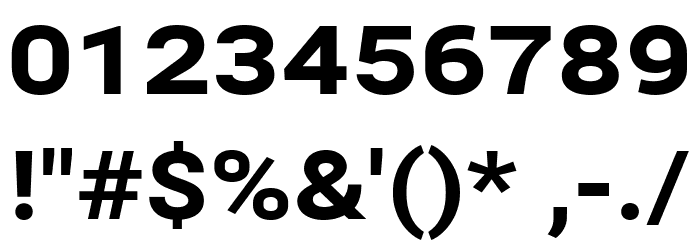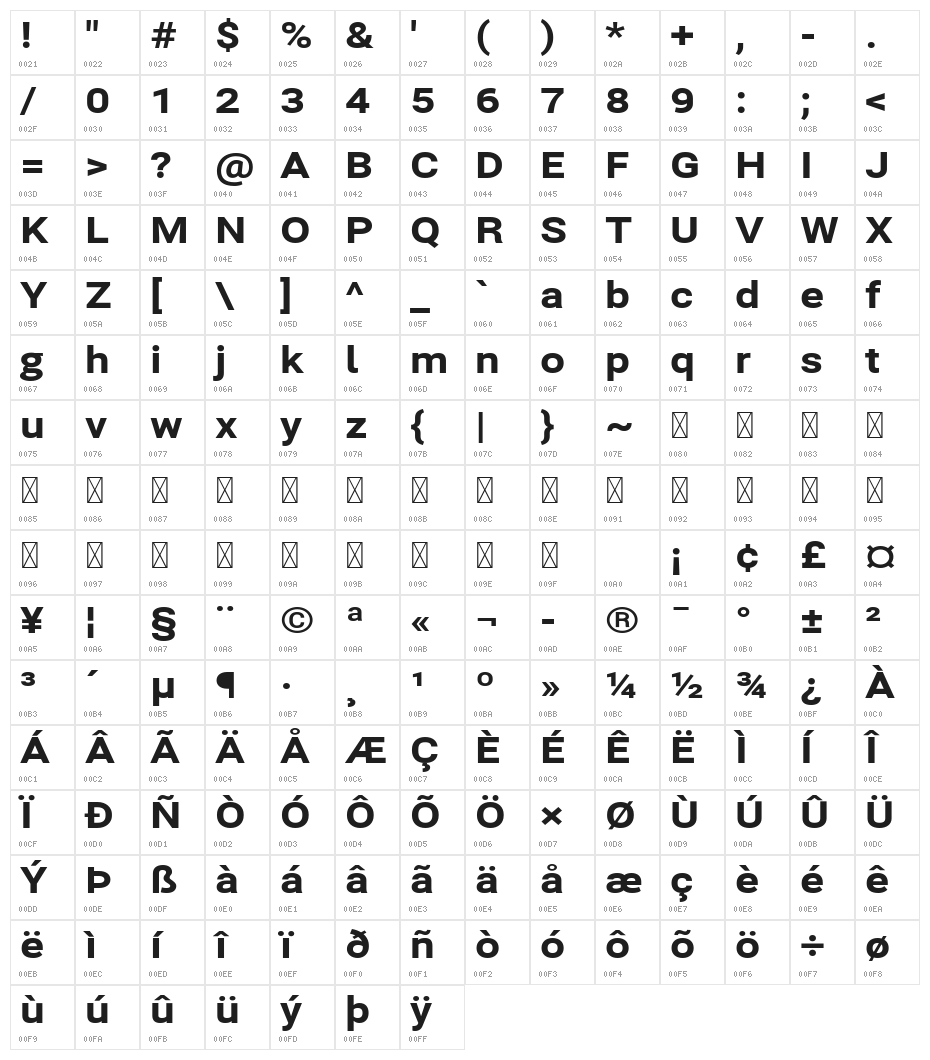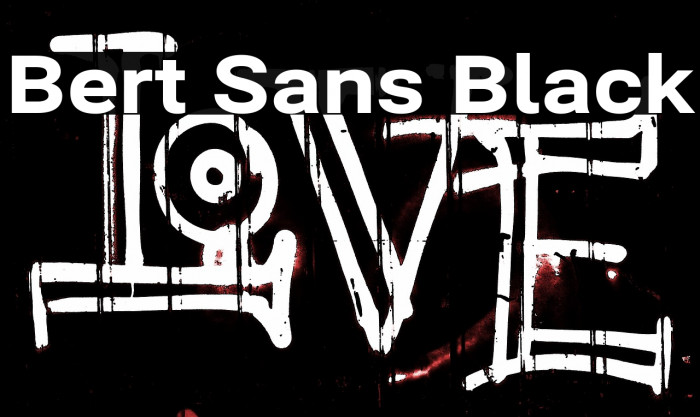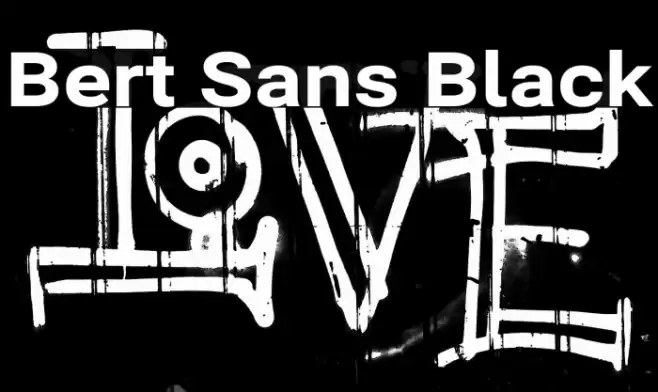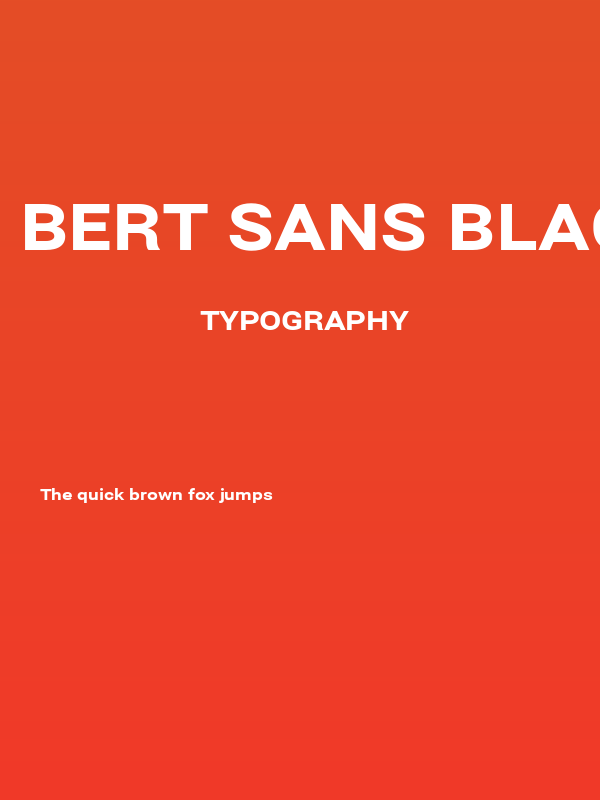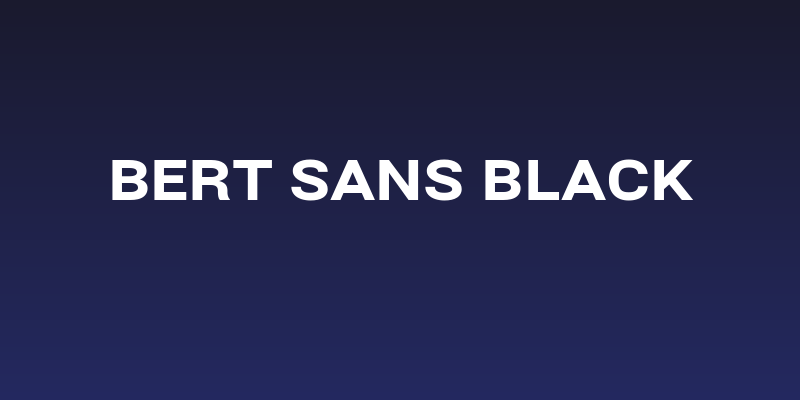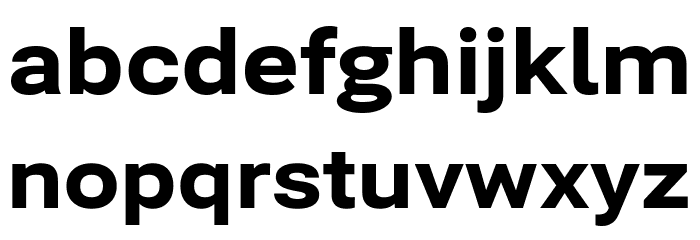
Bert Sans Black Font
Bert Sans Black Description
This typeface presents a bold and modern aesthetic with clean lines and a strong presence. The characters are uniformly thick, offering a consistent and powerful look across both uppercase and lowercase letters. The numerals and special characters maintain this boldness, ensuring clarity and readability. The design is straightforward, with no additional flourishes or serifs, making it ideal for contemporary applications. The spacing between characters is balanced, providing a harmonious flow without feeling cramped or overly spaced. This font is versatile, suitable for a range of design needs where a strong, modern impression is desired.
| Use Case | Headlines, Logos, Advertising |
| Proposed Projects | Ideal for branding, advertising, headlines, and digital media where a bold statement is needed. |